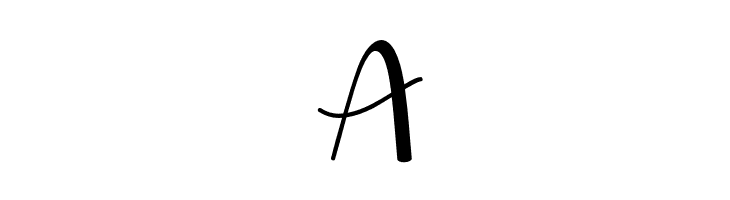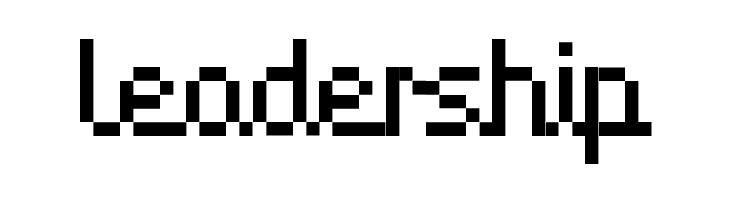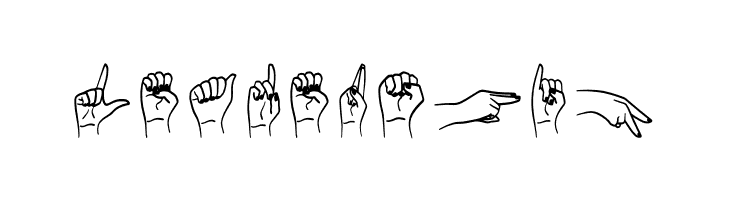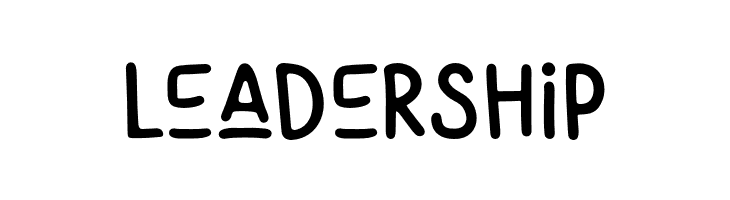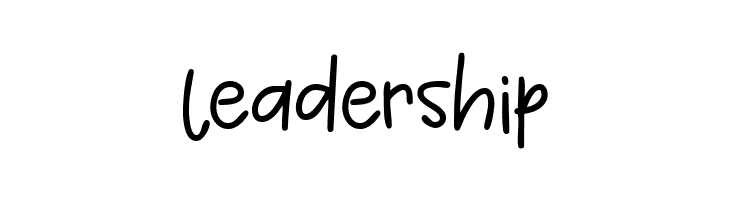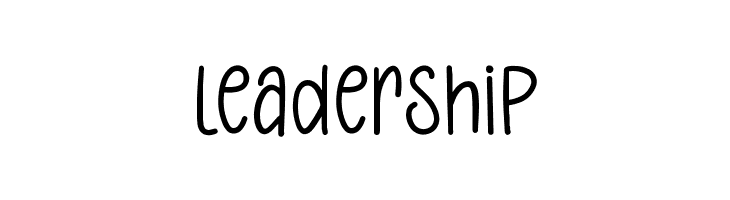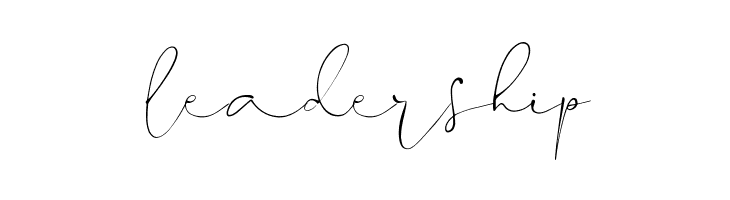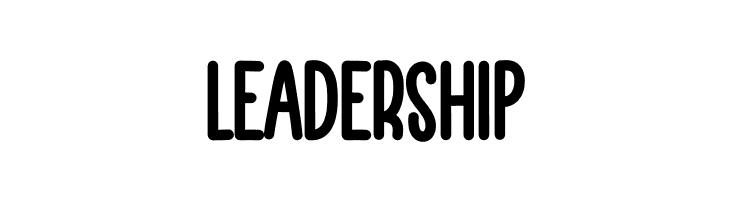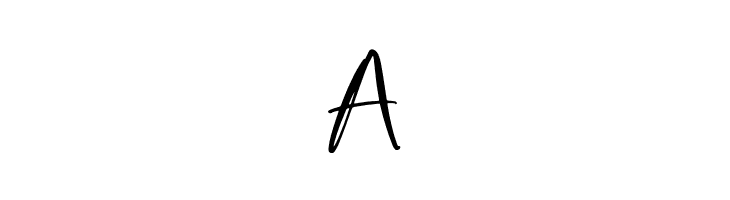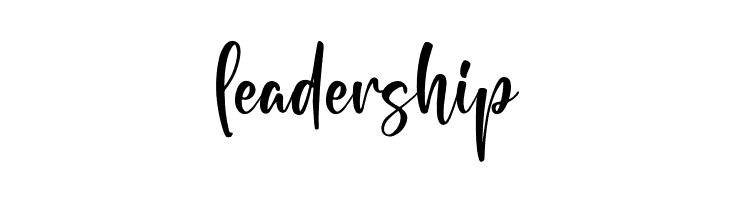
• Handy Writing
A playful, handwritten-style font with bold, irregular strokes.
• Handy00
• HandyAndy
A playful, hand-drawn font with rounded edges and a friendly appearance.
• Handycheera
A bold, expressive script font with flowing, cursive letterforms.
• Handycraft-Regular
A whimsical and flowing script font with elegant, playful characteristics.
• HandyDandyFREE
An elegant, flowing script font with graceful curves and fluid strokes.
• Handyfont Regular
• HandyGeorge
A playful, hand-drawn font with a unique striped pattern and decorative style.
• HANDYHANDY
A bold, playful handwritten font with a casual and energetic style.
• HandyInk-PersonalUse
A playful, cursive script font with elegant loops and swirls.
• Handylinedfont
A bold, playful handwritten font with dynamic strokes and a casual style.
• Handyman's Special
A decorative font featuring hand tools as characters, perfect for DIY-themed projects.
• HandyMattea
A bold, flowing script font with elegant flourishes and interconnected letters.
• HandyMode-Regular
A playful, handwritten font with rounded edges and consistent stroke width.
• Handypot
A playful, hand-drawn font with thin, elongated strokes and a whimsical style.
• HandyStencil
A bold, playful stencil font with a modern-retro vibe.
• HandyWesternSerif Medium
• handzpyd-demo
A playful, handwritten font with irregular strokes and a casual style.
• Hanging Christmas
A playful, handwritten font with a casual and friendly appearance.